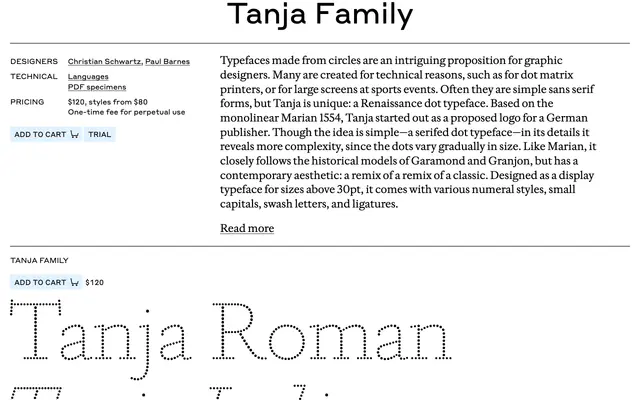
Tanja
Commercial Type · Commercial Type
A small two-style italic-led display serif from Commercial Type, presented as Tanja Roman and Tanja Italic.
A two-style display serif from Commercial Type, presented as Tanja Roman and Tanja Italic. Drawn as a specimen-scale family for editorial mastheads, fashion and short headline work where you want a single confident voice rather than a broad weight range. Pairs in Commercial Type's systems with their larger serif and sans collections.
Commercial Type list Tanja as a small specimen family, two styles only, drawn as an italic-led display serif.